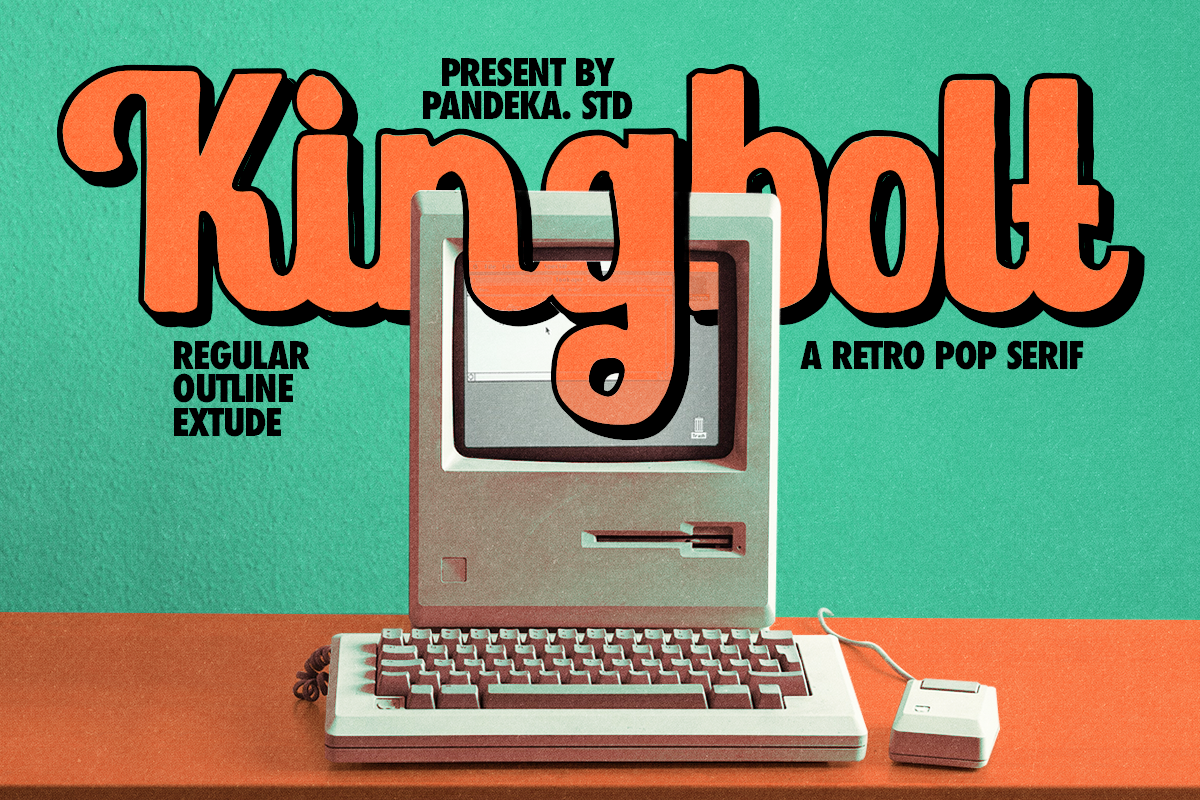
Kingbolt Font Free Download is a bold vintage retro typeface that comes with an extrude version for an extra layer of depth and impact. Inspired by classic signage and old-school typography, Kingbolt is perfect for logos, posters, t-shirts, café menus, and branding projects that crave a nostalgic punch.
Its strong letterforms and shadowed style make it easy to create standout, dimensional text with a timeless feel. Whether you’re designing for a retro brand or adding a touch of vintage flair to your content, Kingbolt delivers bold personality and visual power. Kingbolt Font Free Download gives you the chance to test both the standard and extruded styles for personal use before purchasing a commercial license.
Fuel your creativity with Kingbolt — a retro display font built for standout design.